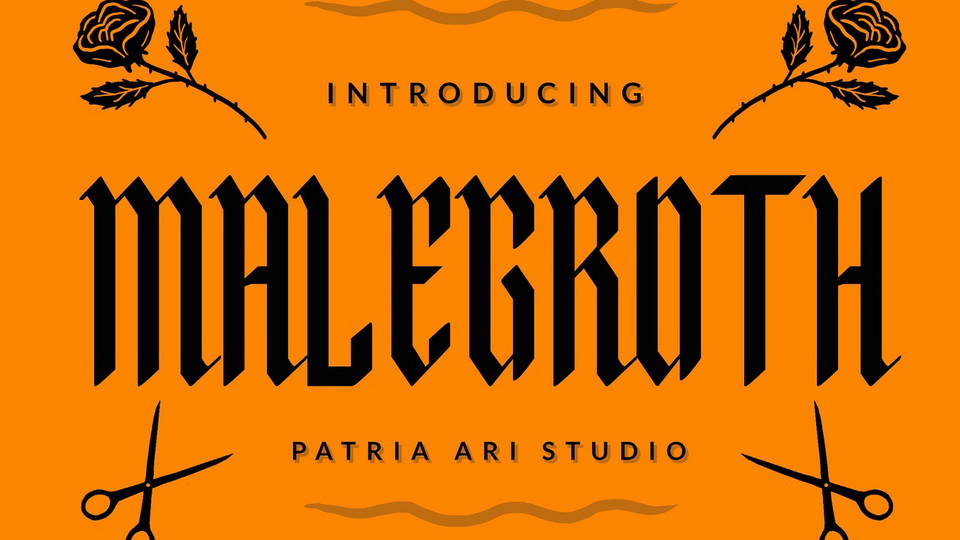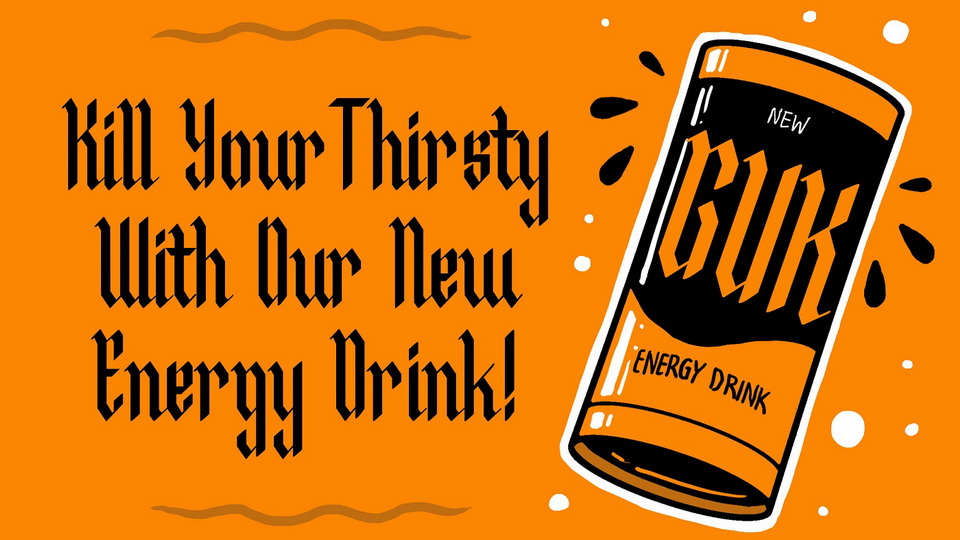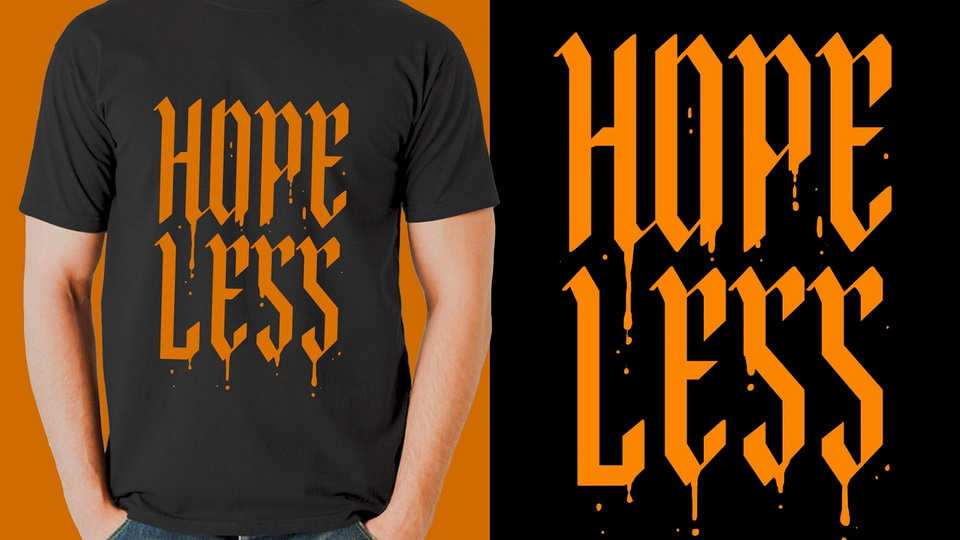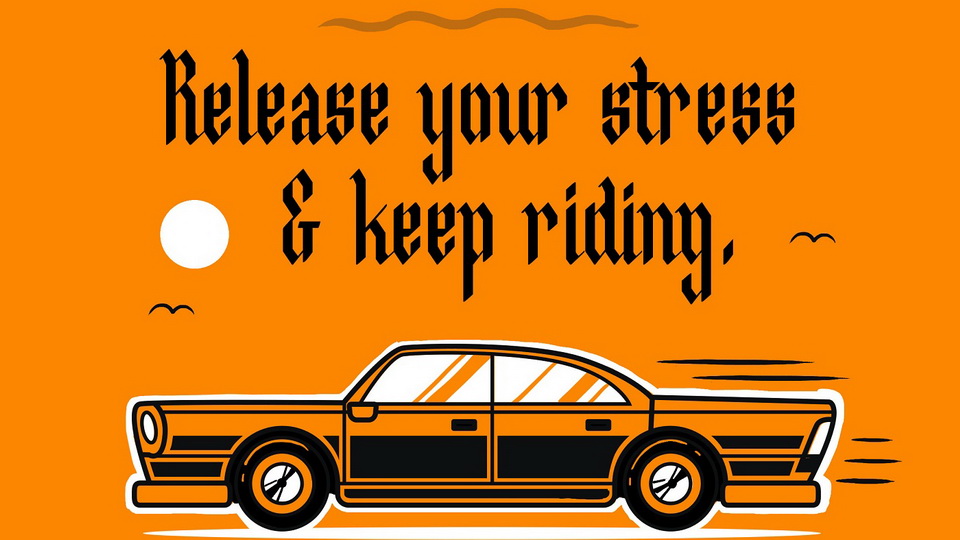
Malegroth is a blackletter typeface with high shaped characters to support your brand/project.
Malegroth is perfect for projects such as logos & branding, headlines, posters, signage, advertisements, printed quotes, product packaging, product designs, label, photography, watermark, special events or anything.